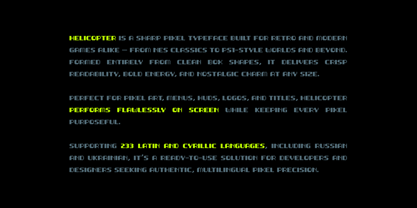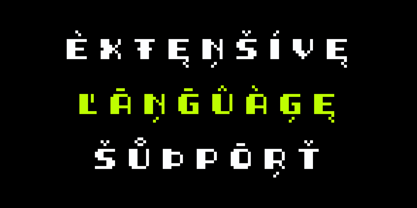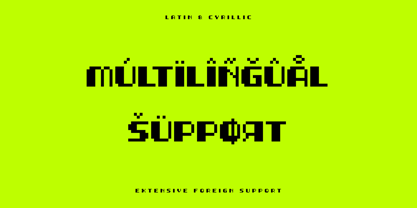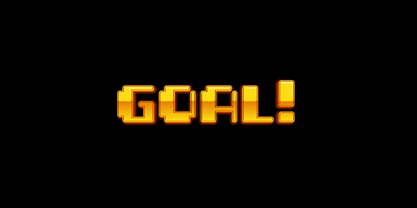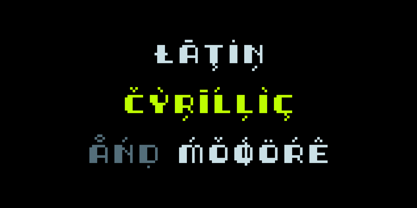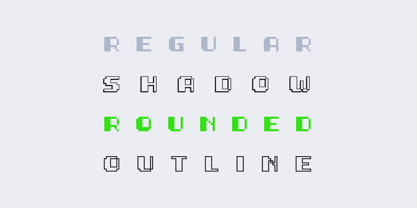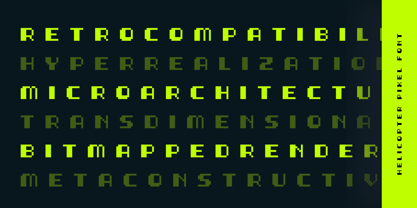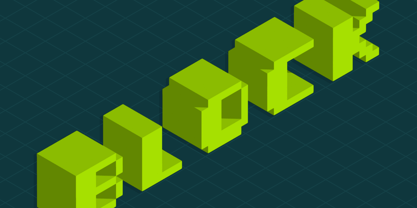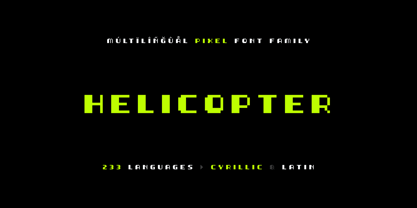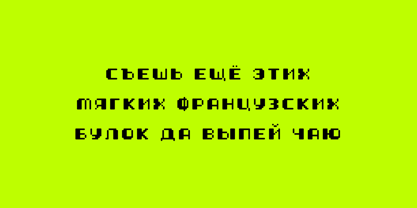
Helicopter
by AlperCakici
The Helicopter Font Family was designed by Alper Çakıcı and published by AlperCakici. Helicopter contains 8 styles and family package options. More about this family
Helicopter is a sharp, grid-built pixel typeface designed for clarity, precision, and unmistakable retro energy. Inspired by the aesthetics of 8-bit, 16-bit, and early 3D gaming, it brings the crisp charm of classic consoles into the modern era. Every glyph is drawn with pixel-perfect geometry — a clean, modular structure that delivers both nostalgic character and contemporary usability. From splash screens to dialogue boxes, HUDs, menus, and in-game interfaces, Helicopter keeps your text clear, stylish, and packed with retro attitude. The family includes 8 styles, such as Rounded, Shadow, and Inline, giving you flexible options for different moods and scenes. Supporting 233 languages in Latin and Cyrillic, including Russian and Ukrainian, Helicopter is built for global gaming communities. Whether you’re crafting a throwback platformer, an indie RPG, or a futuristic UI, Helicopter gives your typography a consistent rhythm and a distinct pixel personality.
Designers: Alper Çakıcı
Foundry: AlperCakici